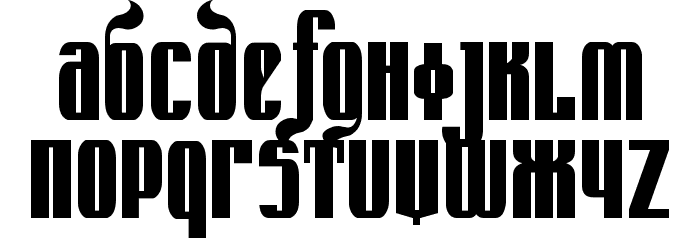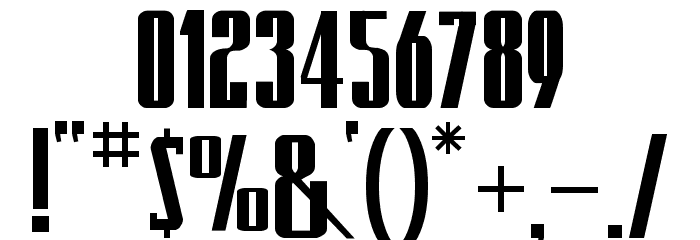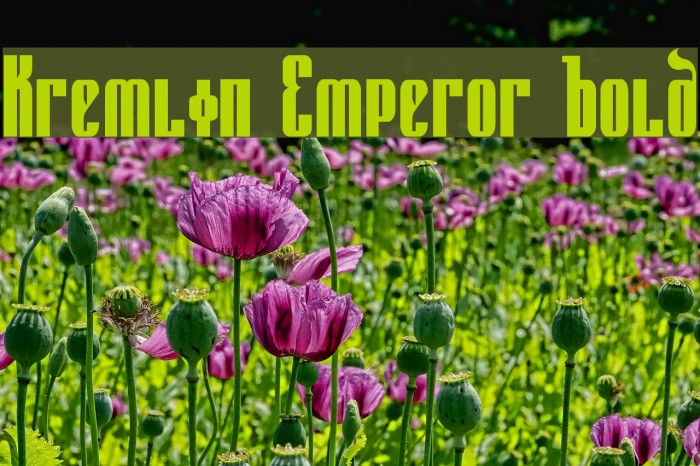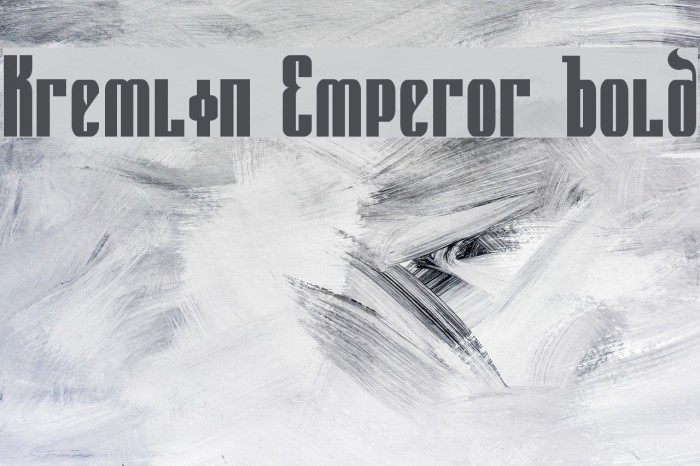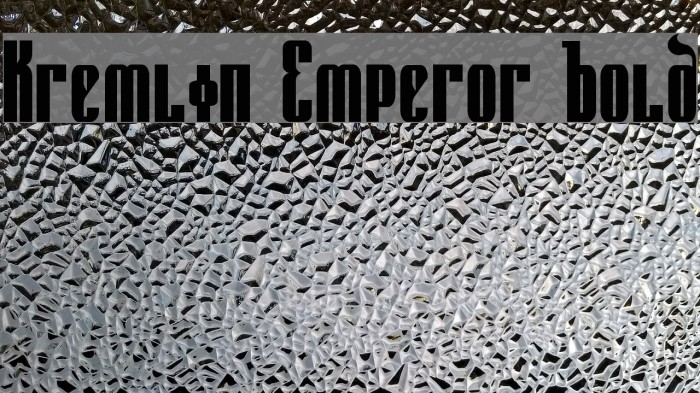
Kremlin Emperor Bold Font
This font features a bold and striking design with a strong presence. The characters are tall and narrow, with a distinct geometric style that incorporates sharp angles and straight lines. The uppercase letters have a commanding appearance, while the lowercase letters maintain a consistent height, contributing to the font's uniformity. The numbers are equally bold, ensuring readability and impact. Special characters are designed to match the overall aesthetic, making this font suitable for attention-grabbing headlines and titles. The font's unique style is reminiscent of historical and architectural influences, giving it a timeless yet modern appeal.
A bold, geometric font with tall, narrow characters and a strong, impactful presence.
- Proposed Projects: Ideal for use in posters, branding, logos, and editorial design where a bold statement is needed.
- Character Spacing: Tight